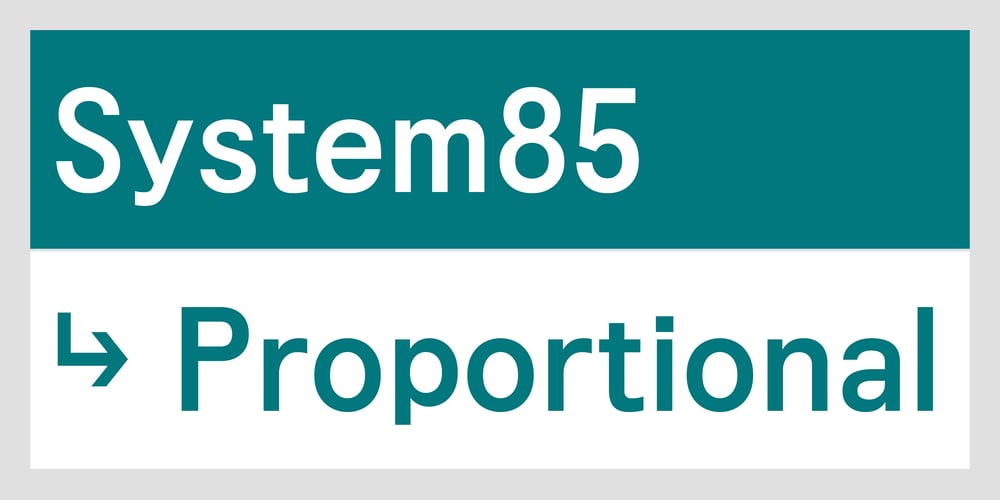
System85 Font Family was designed by Colophon Foundry and published by Colophon Foundry. System85 contains 6 styles and family package options. Initially an exploration into a vertically limited design space after a visit to Japan and subsequent research into Japanese typography, System85’s design takes a crude approach to the re-interpretation and / or / maybe mis-interpretation of Latin type in Japan.Its namesake, an abbreviation of its total height (850), System85 is designed to be both awkward and comfortable in its setting and placement. With an unusually small descender length and unconventional width, the type replicates its parentage in tight vertical line spacing as well as playing homage to the early system default Grotesks found on Windows 3.1, 95–XP, with particular attention paid to the pan-asian variants, of which the default System fonts are used extensively in Japan.Spanning two master families, Proportional and Mono, System85’s core design is shared across a consistent weighting and styling, with juxtaposed combinations of serifs and straight forms, alongside grade-spaced corresponding Italics. The Mono family contains an extensive set of box drawing tools and stylistically associated arrows. By combining two unicode blocks into a singular entity, this allows the integration of both blocks to be exchanged, interchanged and connected together.System85 is available in three weights — Regular, Medium and Bold, all with corresponding Italics — over both Proportional and Monospaced variants. It is available to license in both Standard (‘STD’) and Professional (‘PRO’) versions, the latter containing a variety of Opentype features, extended support for Latin scripts and Cyrillic and Greek script support.A full rationale of System85’s development can be read here.